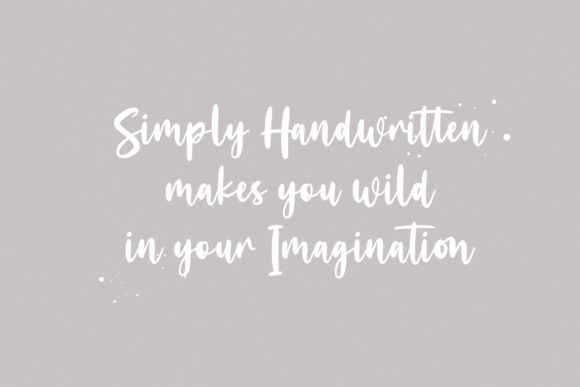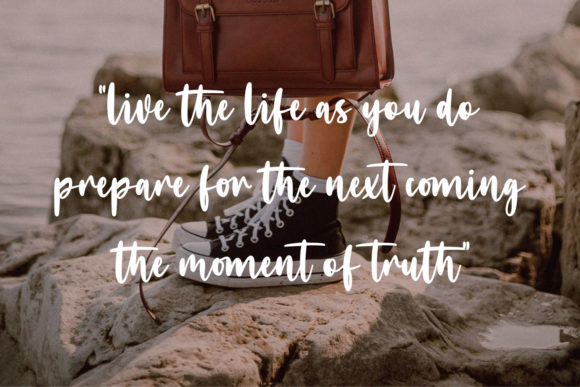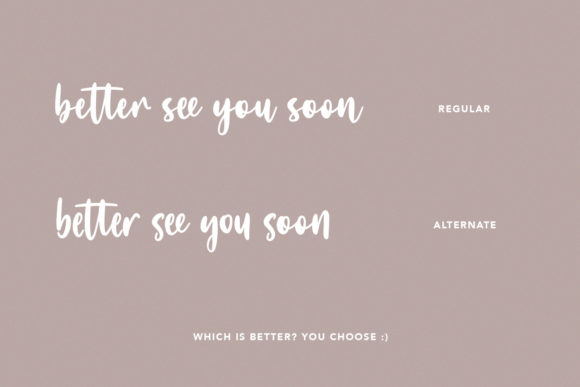
Introduction to Moonsticky Font
Do you ever find yourself rummaging through your design files, searching for the perfect font to match your creative vision? I know I do. Sometimes, it’s the smallest details that can make or break a project. For me, it was a recent design project where I needed a font that would add a touch of whimsy and romance to a wedding invitation. After hours of searching, I stumbled upon the Moonsticky Font – and my design life was forever changed.
As a designer, having access to high-quality fonts is invaluable. The Moonsticky Font is a sweet and cursive handwritten font that’s perfect for adding a personal touch to your creative projects. With its transparent background, it’s a versatile design resource that can be used in a variety of settings, from wedding invitations to social media graphics.
Key Features of Moonsticky Font
- High-quality design resource ideal for creative projects, offering a unique and modern aesthetic.
- Features a transparent background, allowing for seamless integration with various design elements.
- Designed with a bold and eye-catching style, perfect for making a statement in graphic design.
- Resolution-independent, ensuring crisp and clear display at various sizes and resolutions.
- Supports a wide range of languages, making it a versatile design resource for global projects.
- Comes in a single font file, with a large character set, including uppercase and lowercase letters, numbers, and punctuation marks.
Honest Review: Moonsticky Font
- High-quality design: The font has a sleek and modern design that’s perfect for creative projects.
- Transparent background: The font’s transparent background allows for seamless integration with other design elements.
One of the things that impressed me about the Moonsticky Font is its versatility. It’s suitable for a wide range of creative projects, from digital design to print materials.
- Not suitable for small text: Due to its modern design, the Moonsticky Font may not be ideal for small text sizes.
- Limited character set: The font may not include some special characters or accents, which can be a limitation for certain design projects.
Overall, I’m impressed with the Moonsticky Font. Its high-quality design and transparent background make it a valuable resource for designers. While it may have some limitations, it’s definitely worth checking out for your next creative project.
Moonsticky Font is ideal for a variety of design projects, including branding, marketing materials, and creative projects. Use it to create unique and memorable visuals that stand out from the crowd.
To get the most out of Moonsticky Font, experiment with different font sizes, colors, and styles. Take advantage of the transparent background to create visually striking designs that showcase the font’s unique character.